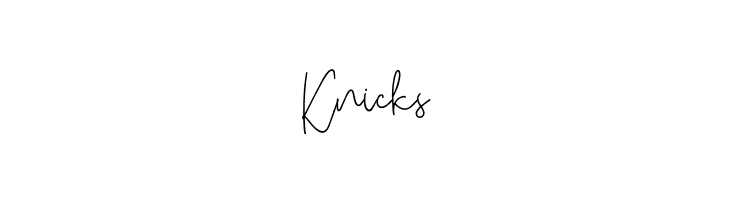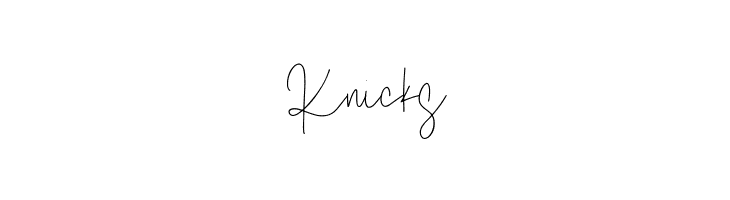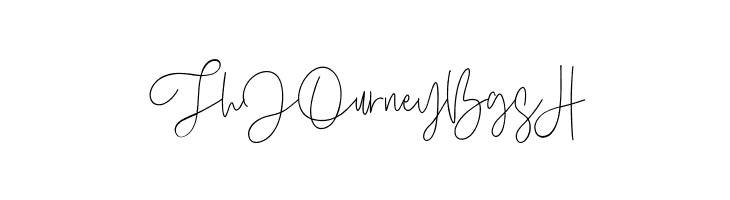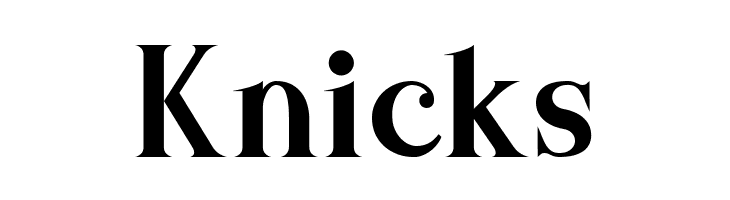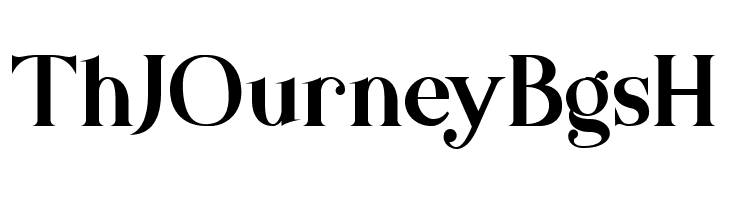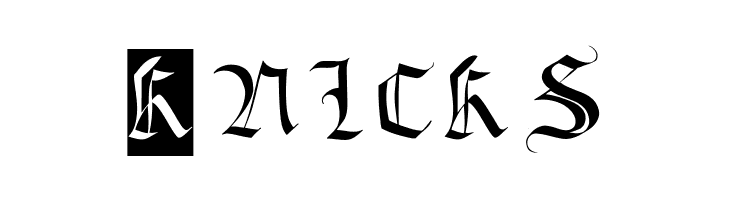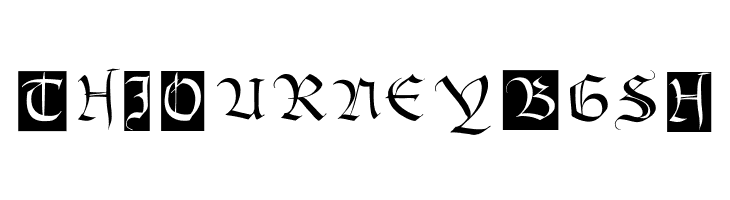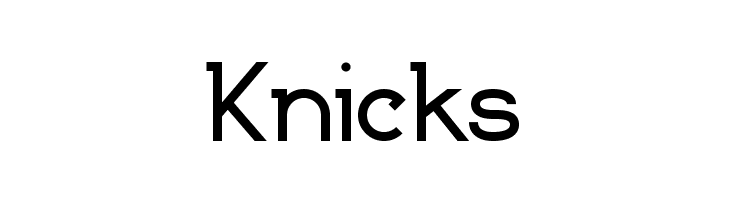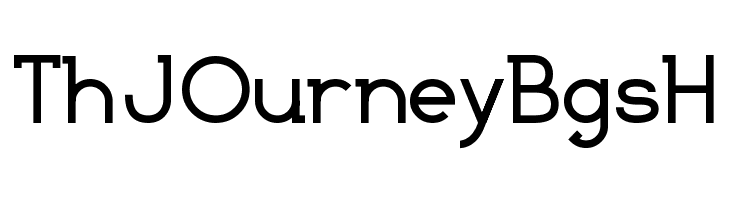
A bold, geometric font with a futuristic and digital aesthetic.
A bold, industrial font with a textured, mechanical appearance.
A clean, modern sans-serif font with geometric uniformity.
A modern serif font with clean lines and a minimalistic design.
A classic serif font with elegant, sharp lines and traditional details.
A Gothic-style font with sharp, angular lines and ornate detailing.
An elegant script font with flowing, interconnected letters and a calligraphic style.
An elegant, flowing script font with delicate, continuous strokes.
A graceful, flowing script font with a handwritten style.